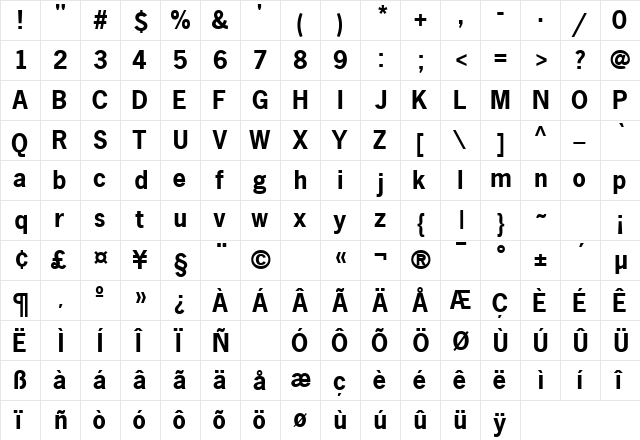
MacroBlackSSK Bold
MacroBlackSSK offers clean, dependable letterforms without strong stylistic allegiance, making it a practical choice for designers who need flexibility. Its bold stroke weight gives it real presence on the page.